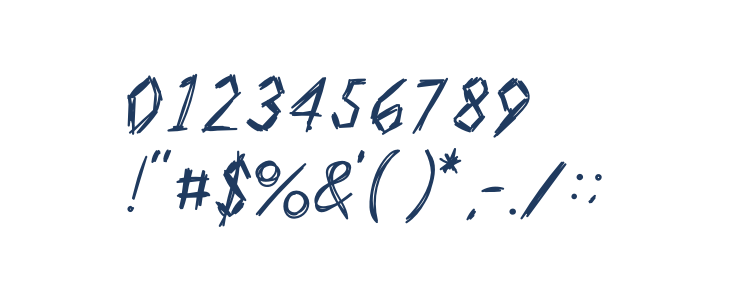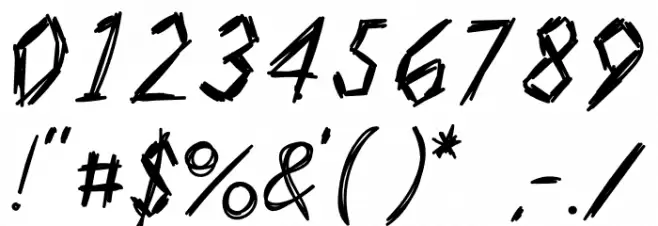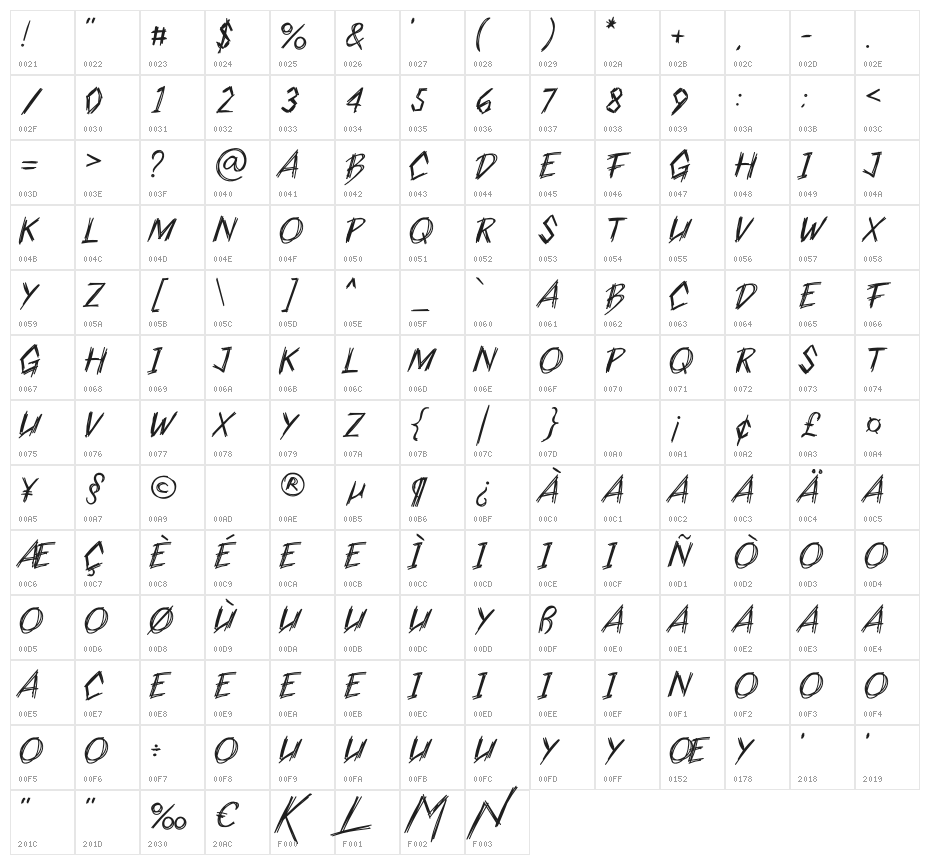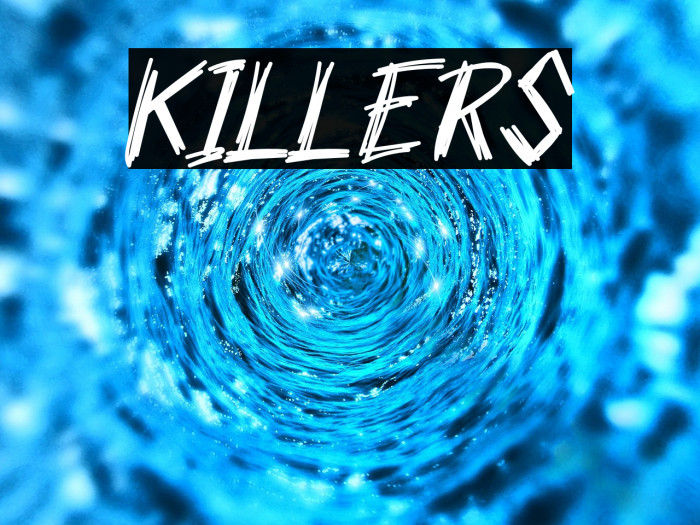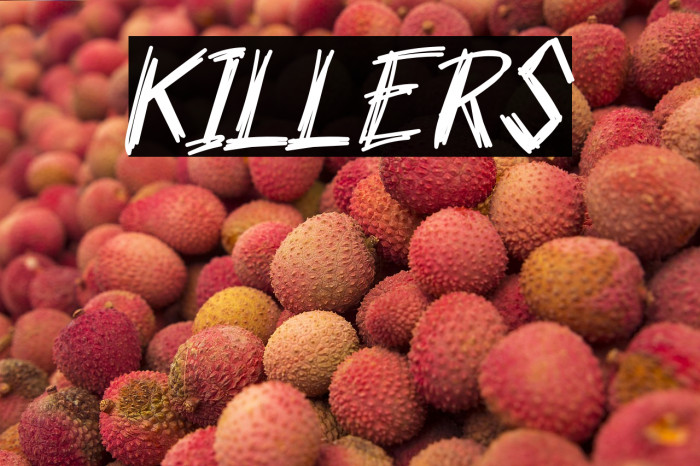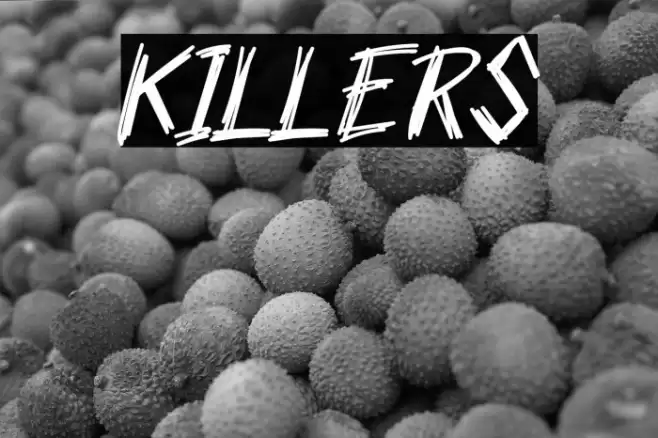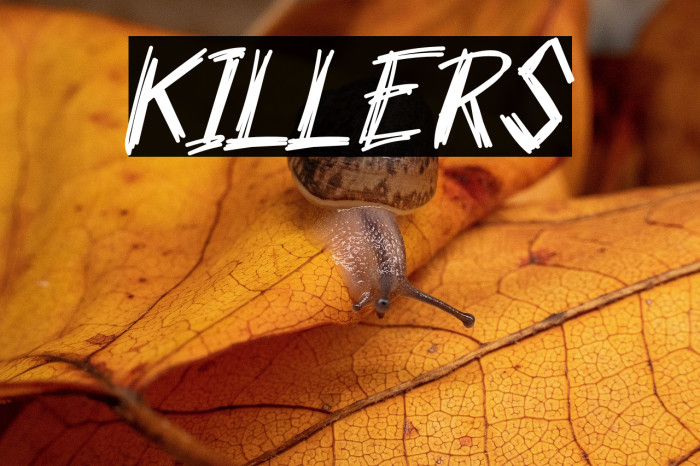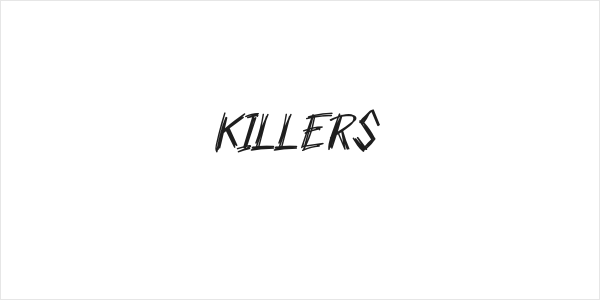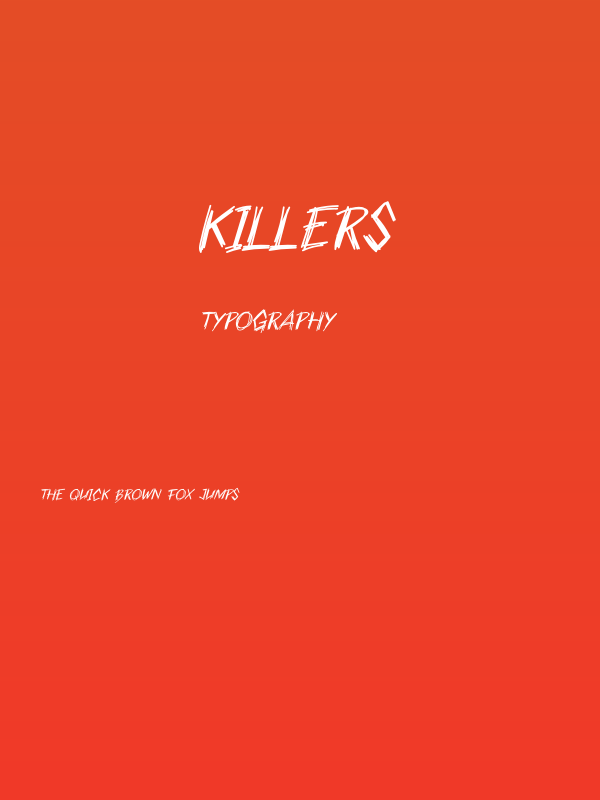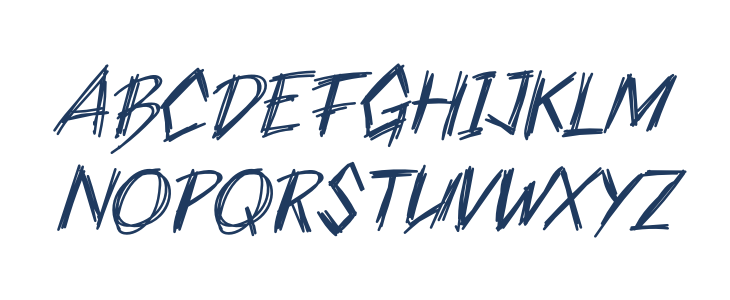
KILLERS Font
KILLERS Description
This font features a bold, energetic style with a hand-drawn, sketch-like appearance. The characters are dynamic and slightly irregular, giving a sense of movement and urgency. The strokes are thick and vary in width, adding to the font's expressive and edgy feel. The uppercase and lowercase letters maintain a consistent style, with sharp angles and a slightly slanted orientation. The numerals and special characters follow the same design principles, ensuring a cohesive look across all glyphs. This font is ideal for projects that require a dramatic and impactful visual statement.
| Overall Style | Modern, Edgy |
| Proposed Projects | Ideal for music album covers, movie posters, graffiti art, and edgy branding projects. |